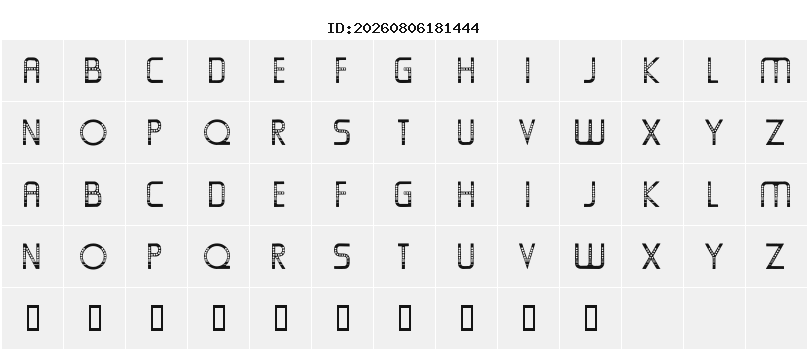
About OldFolksShuffle.ttf
OldFolksShuffle.ttf is a modern, elegant sans-serif font designed for ultimate readability and visual harmony. Perfect for branding, headlines, web design, and print materials.